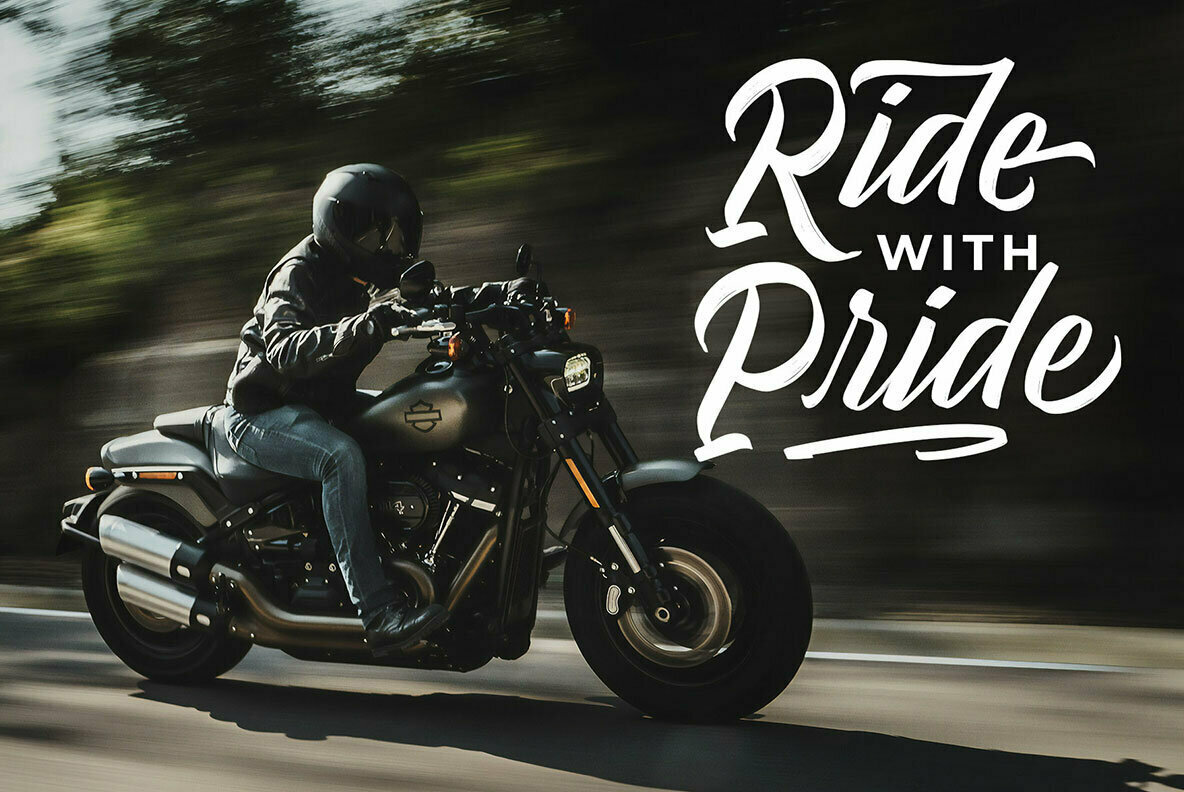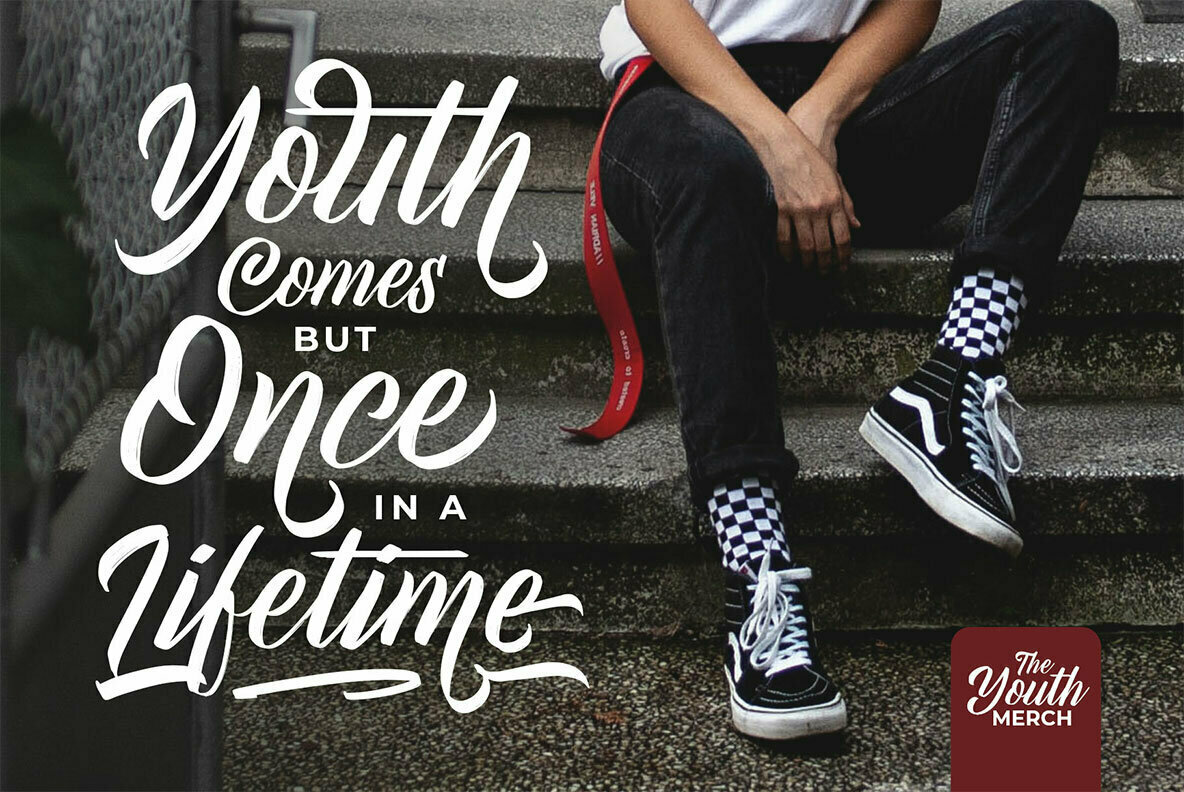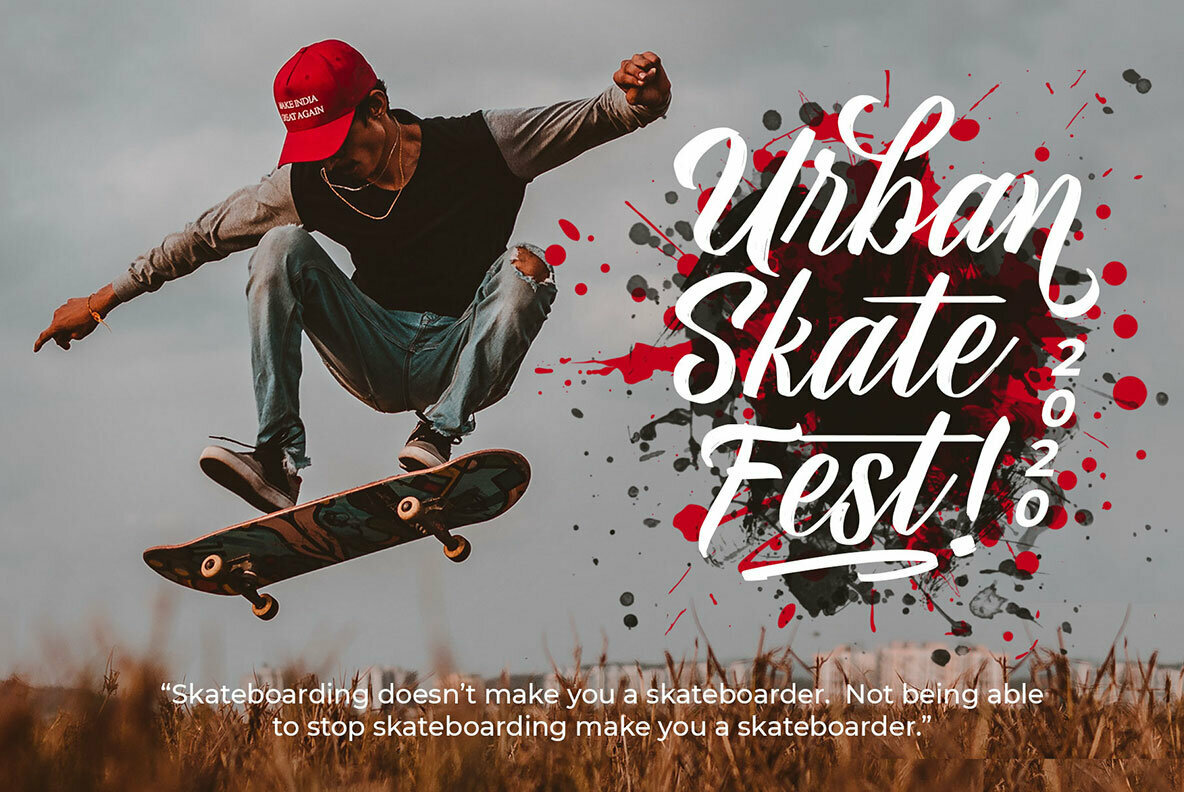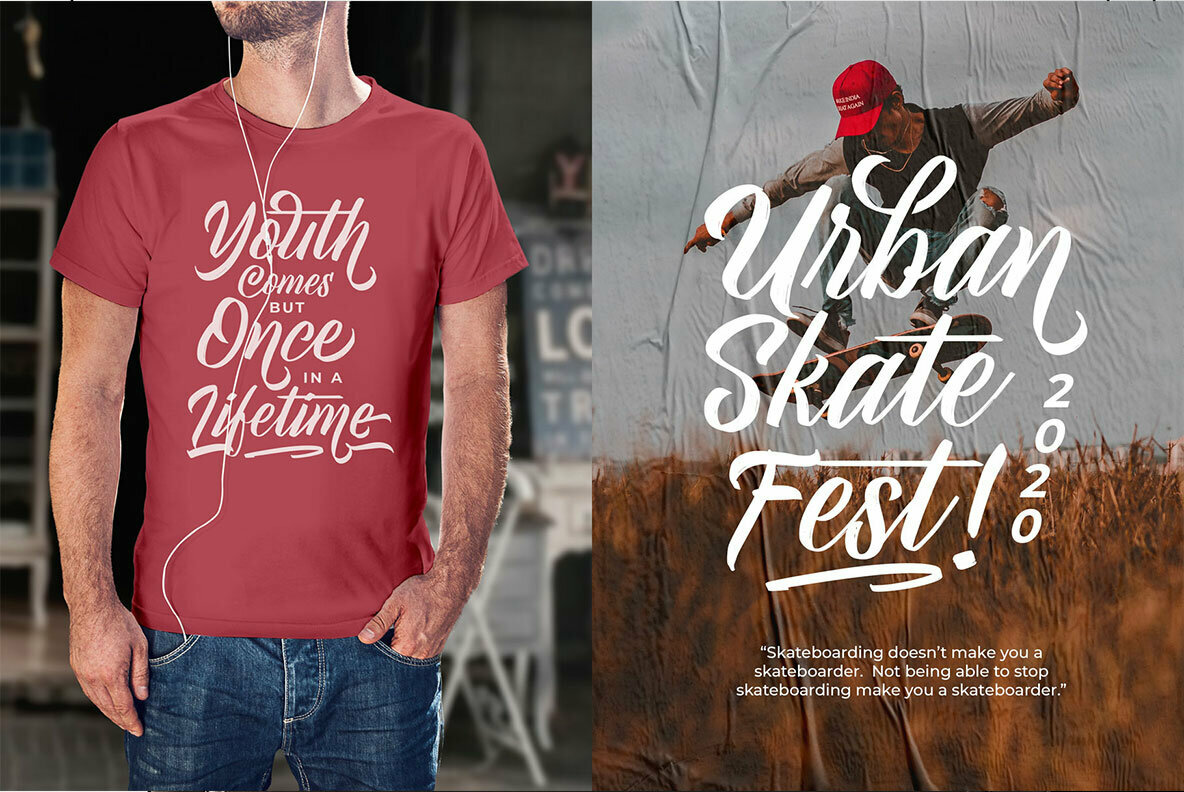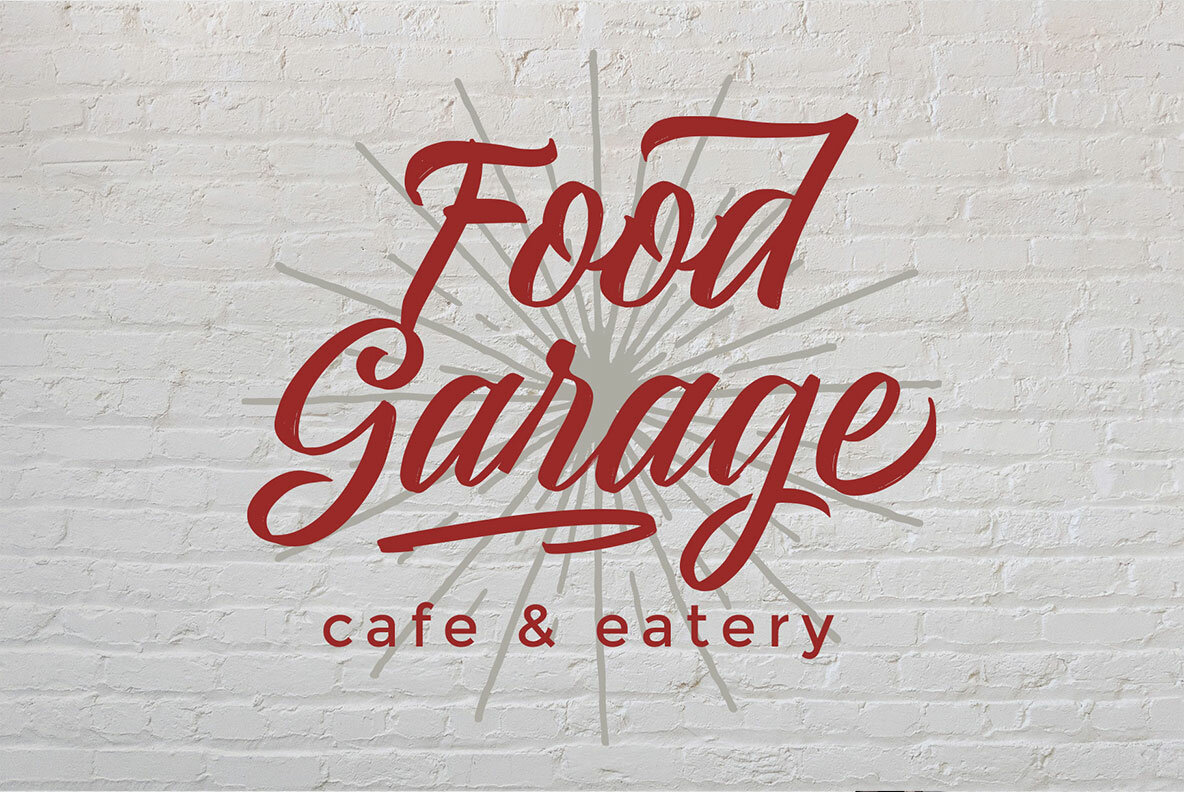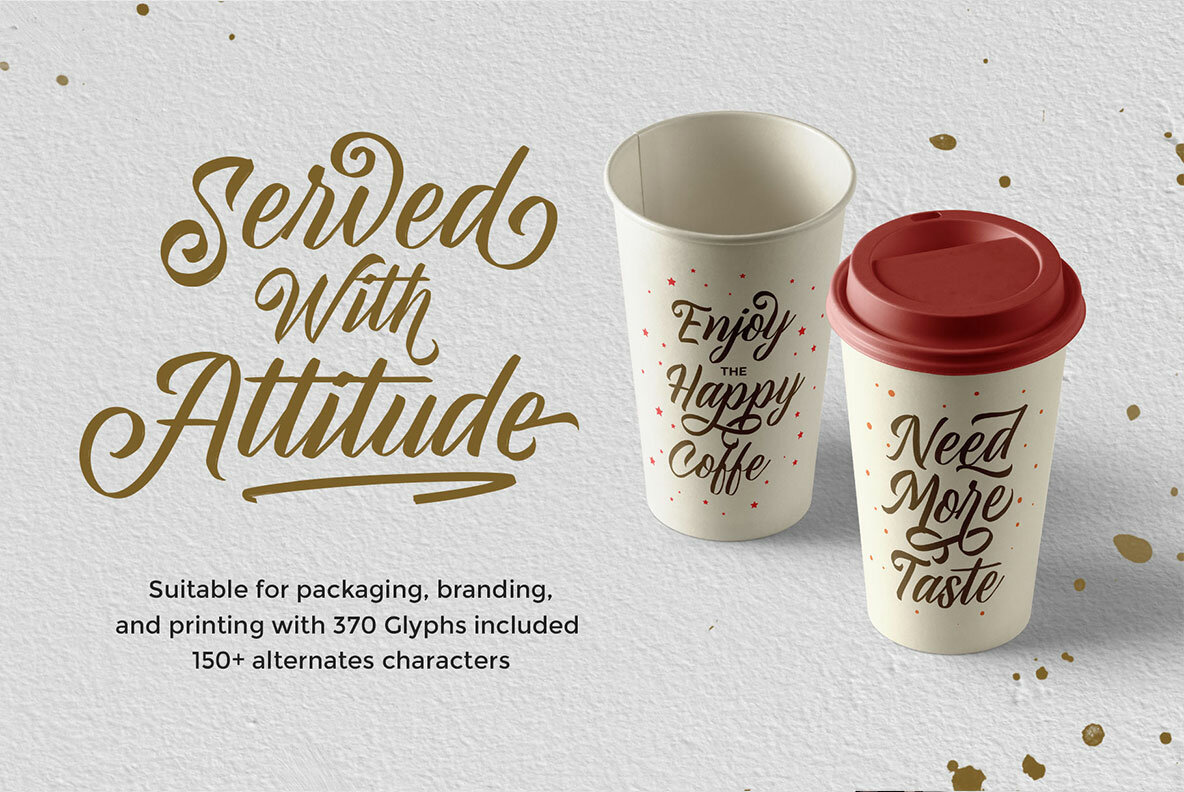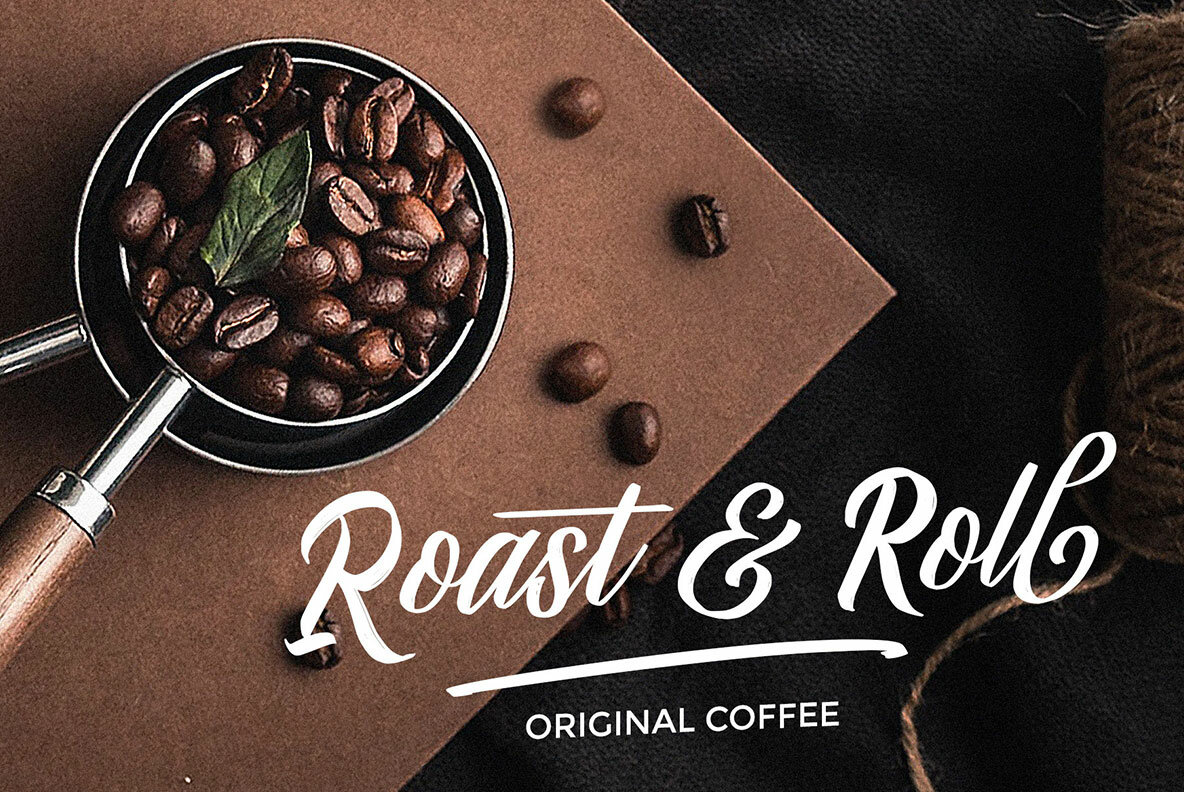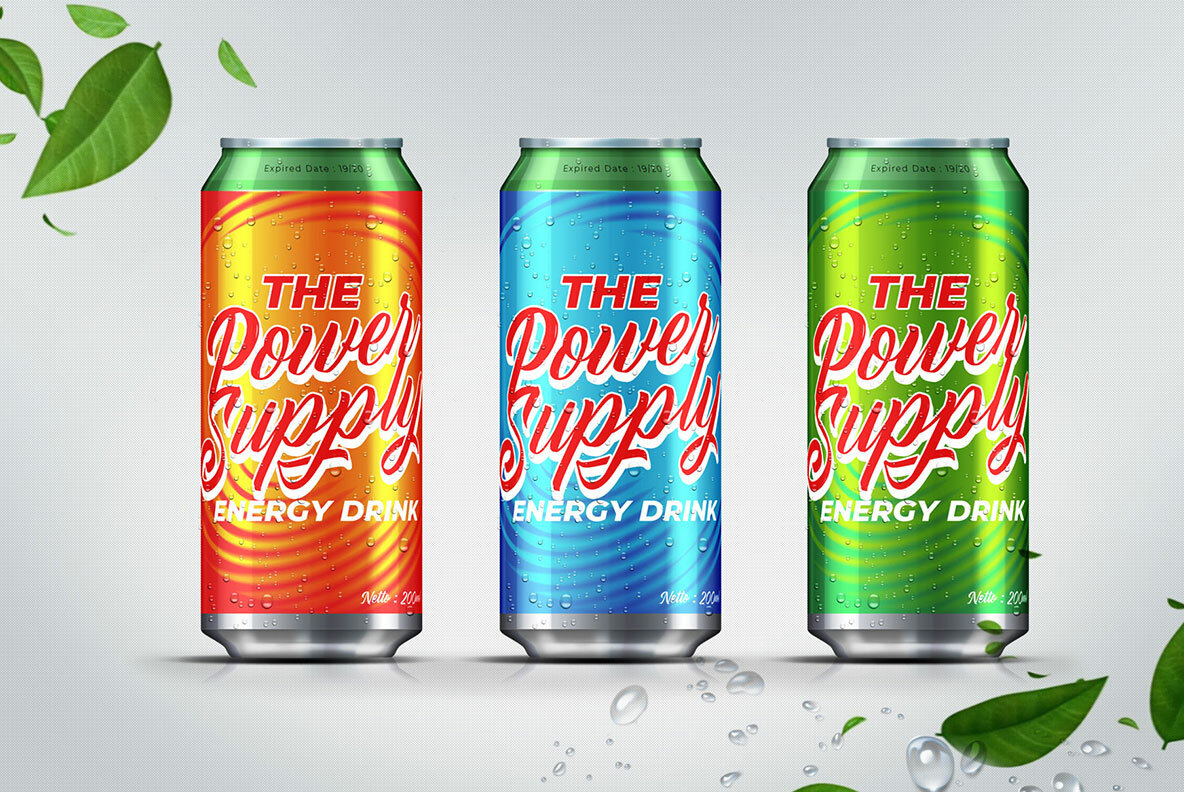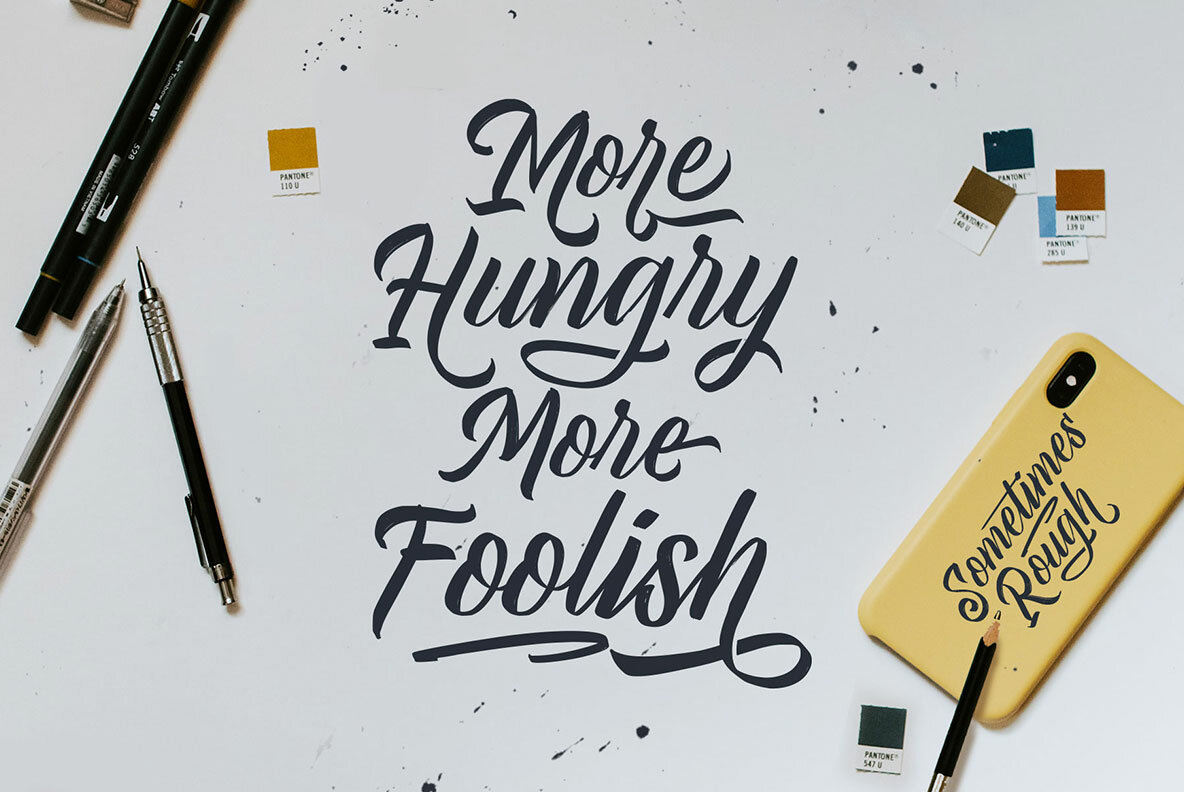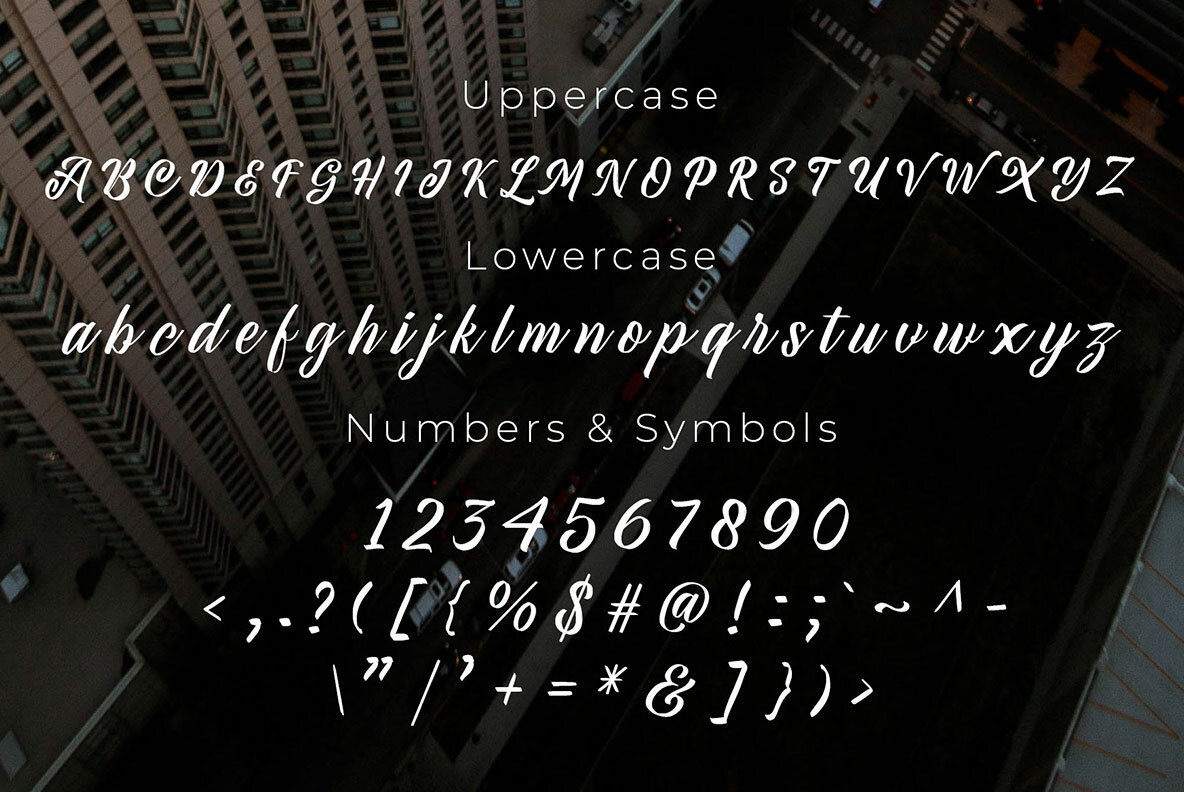
Sometimes Rough Font
Sometimes Rough
Sometimes Rough injects a fresh, hand-lettered brush style into your projects, making it a standout choice for creatives who value personality in type. This font marries versatility with modern-vintage aesthetics, allowing you to shift between strong, feminine, elegant, or robust touches. The font is designed to accommodate a wide range of applications, from logos to packaging, and from flyers to advertising campaigns. It comes equipped with over 150 alternate characters, offering a plethora of variations that help you craft a natural and distinct typographic presence.Sometimes Rough: Dynamic Brush Typeface